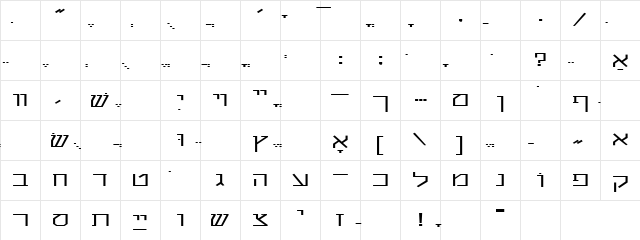
FZ FOREIGN 11 SHALOMSTICK EX Normal
Design Context for FZ FOREIGN 11 SHALOMSTICK EX
FZ FOREIGN 11 SHALOMSTICK EX is a composed and adaptable typeface that performs quietly and consistently across a wide range of design contexts.